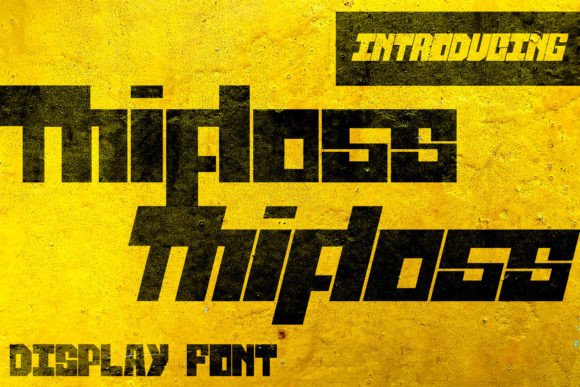
In a world saturated with monotony, embrace the captivating aura of Thifloss Font, a display font that radiates boldness and distinction. Crafted by the ingenious minds at Jadatype, Thifloss Font is not merely a collection of characters; it's an artistic expression, a symphony of visual delight that transforms ordinary words into captivating masterpieces.
Prepare to be mesmerized by its block-bold strokes, exuding an air of confidence and strength that commands attention. Thifloss Font is a versatile chameleon, effortlessly adapting to your creative vision. Whether you're crafting posters that demand attention, logotypes that leave a lasting impression, apparel that sparks conversations, or branding that speaks volumes, Thifloss Font is your trusted companion.
With Thifloss Font, you'll discover a font that transcends the boundaries of convention. Its bold lines and sharp angles ignite a sense of energy and dynamism, while its solid structure ensures readability and clarity. Unleash your creativity and watch as Thifloss Font breathes life into your designs, transforming them into captivating works of art.
Step into the realm of limitless possibilities with Thifloss Font. Whether you're a seasoned designer or just starting your creative journey, this font will elevate your projects to new heights. Its user-friendly nature invites experimentation and exploration, empowering you to craft designs that reflect your unique style and vision.
So, embark on a typographic odyssey with Thifloss Font and discover a world of design possibilities. Its block-bold style will captivate audiences, leaving an indelible mark on their minds. Embrace the boldness, embrace the distinction, and let Thifloss Font guide you to typographic greatness.